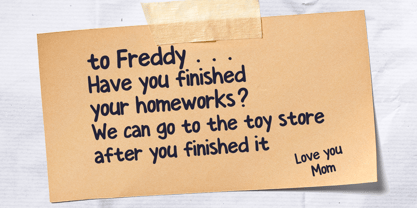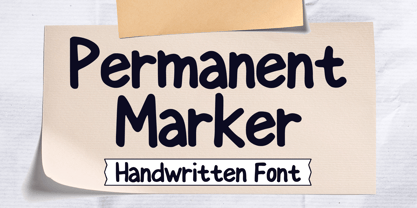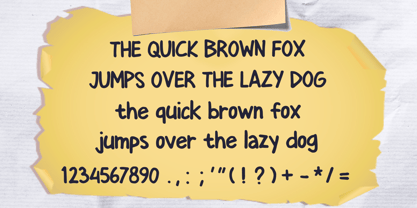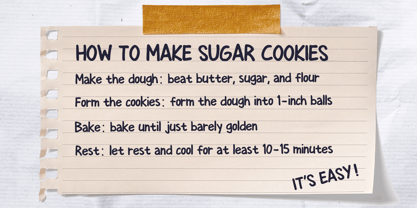
Permanent Marker
by Mvmet
The Permanent Marker Font Family was designed by Gabriel Valentinus and published by Mvmet. Permanent Marker contains 1 styles.
Introducing Permanent Marker, an entertaining and versatile font ideal for daily use. This delightful marker style font possesses the ability to magnify a myriad of design projects to supreme levels. It's an excellent selection for numerous artistic concepts including fun stickers, trendy t-shirt designs, striking logos, dynamic magazine or book covers, whimsical comics, enchanting cartoons and much more. Infuse extraordinary charm into your designs with the Permanent Marker font, effortlessly giving them a stunning cool edge!